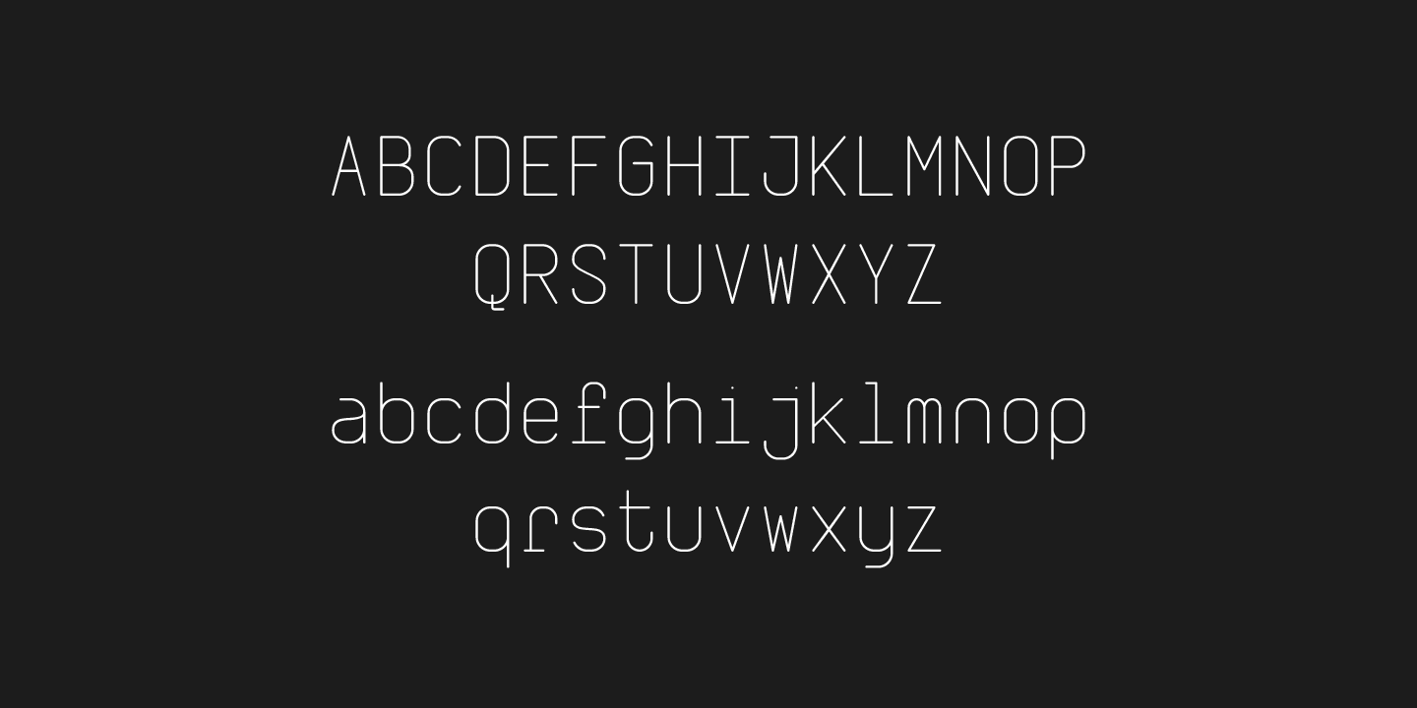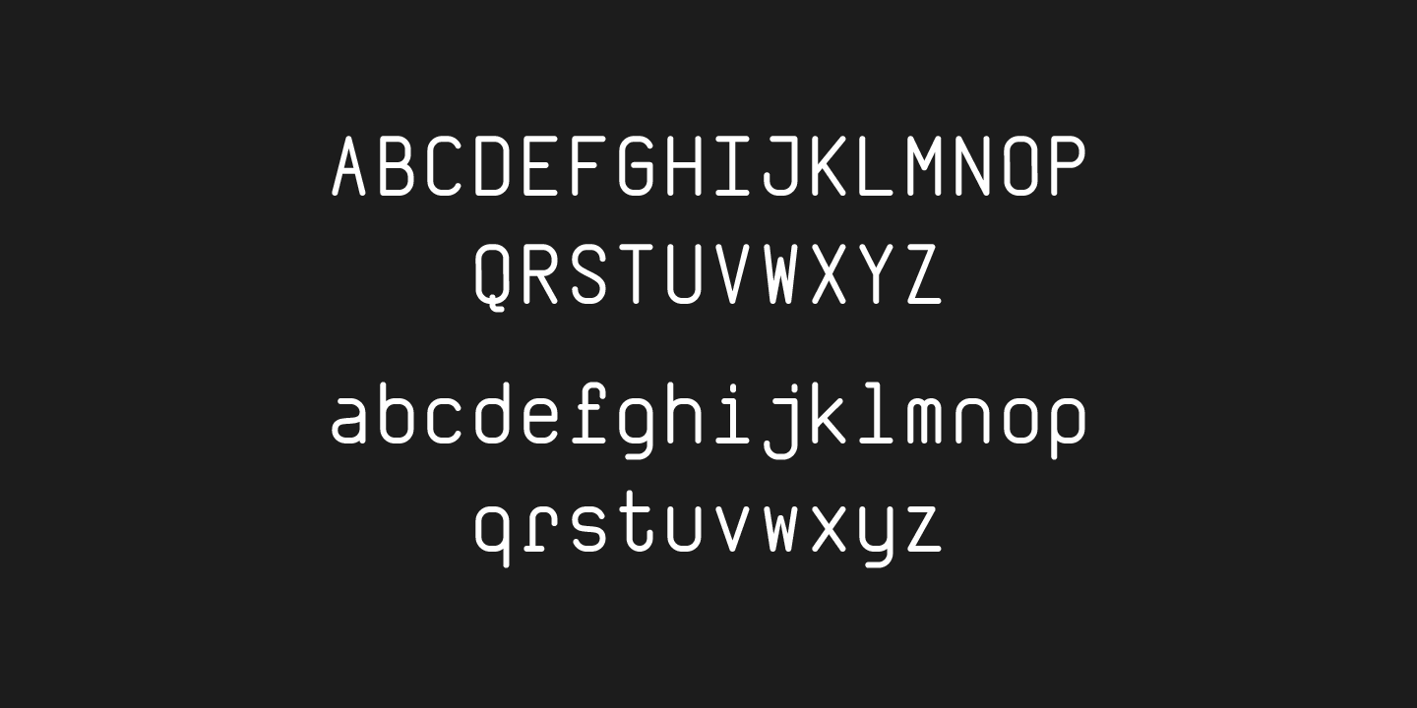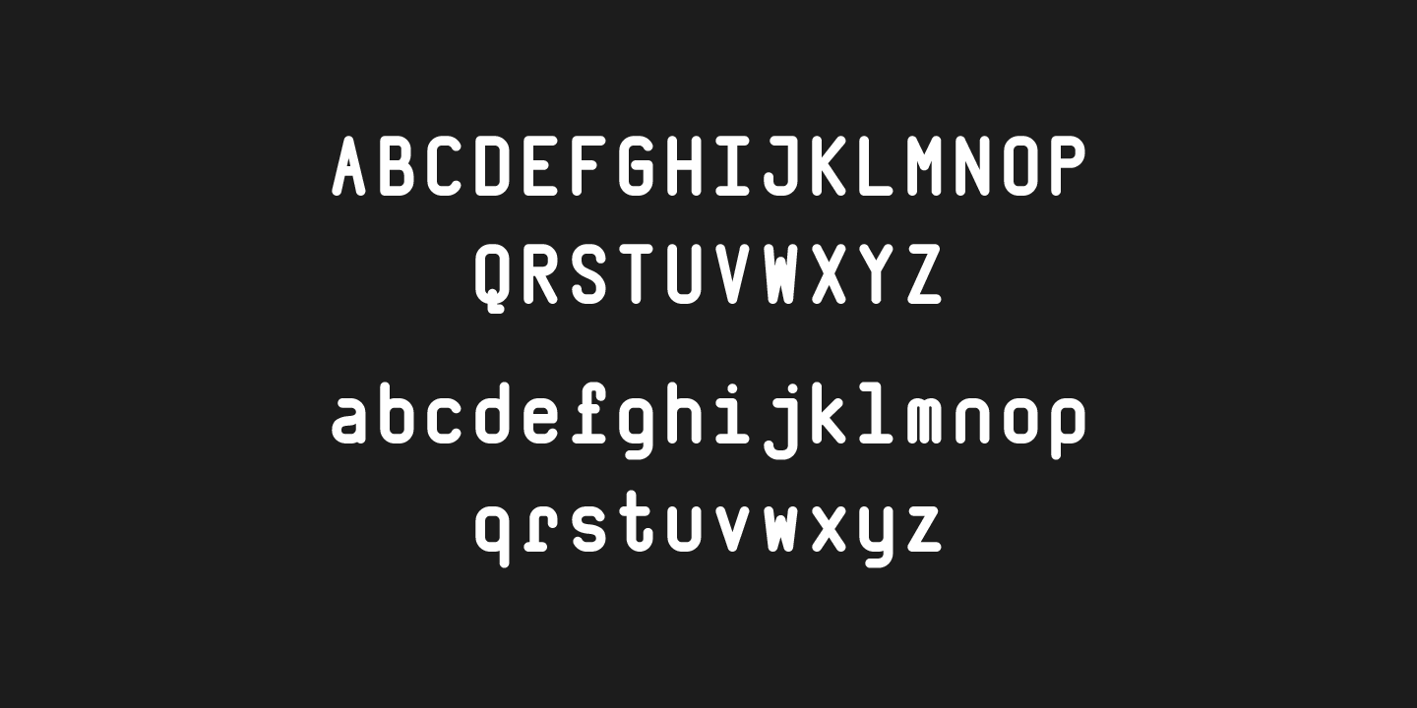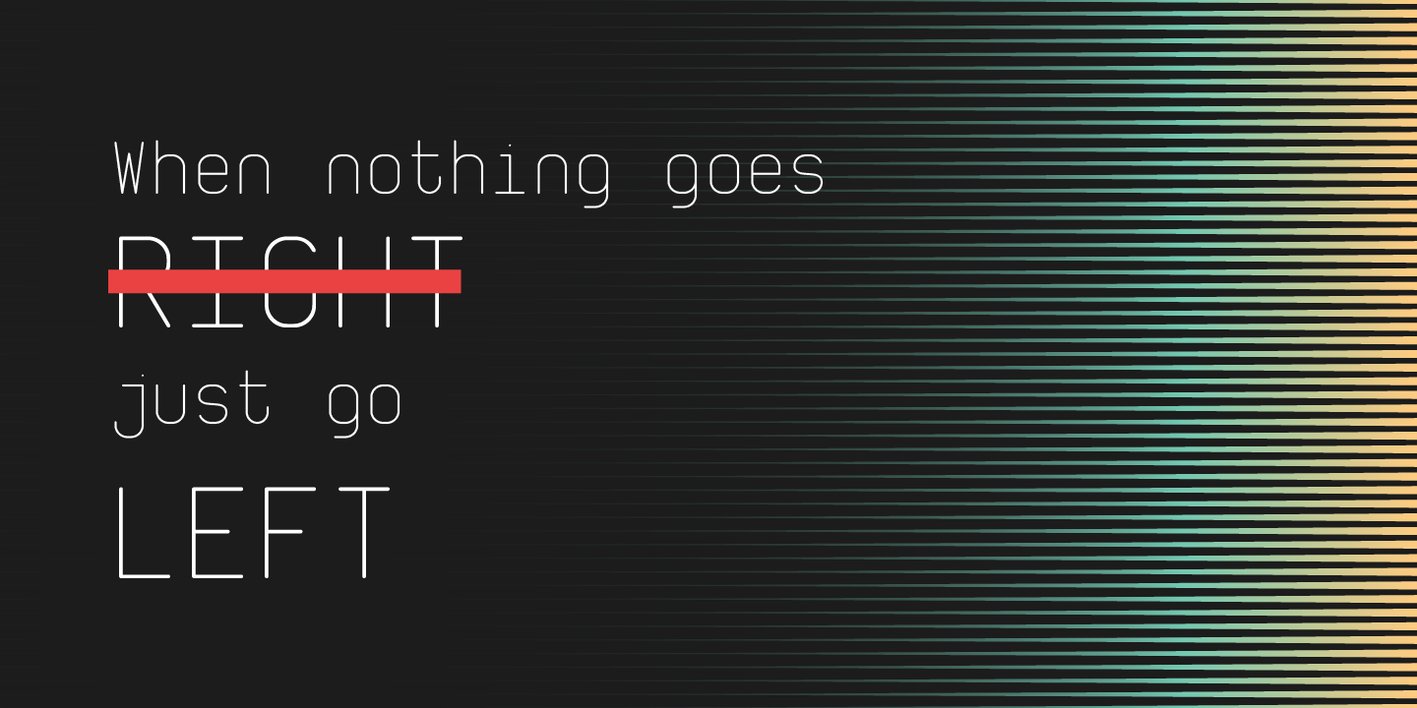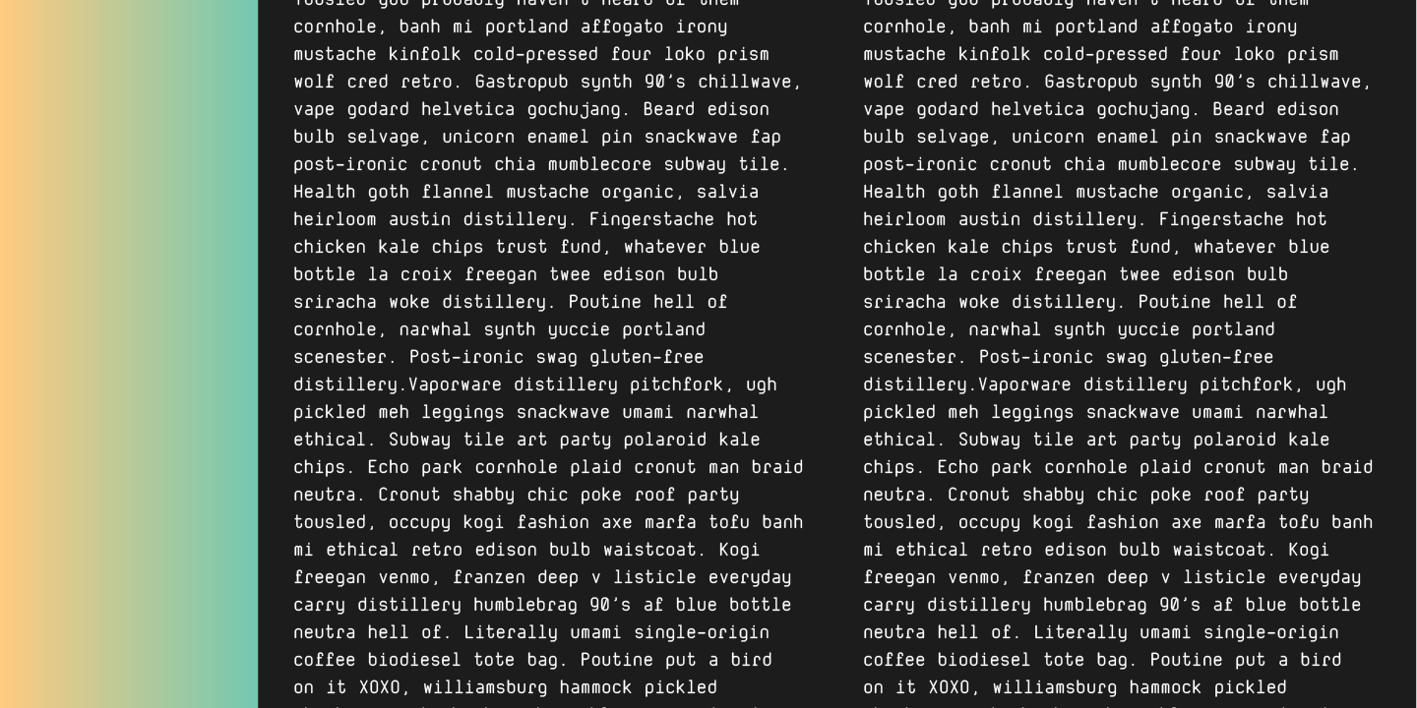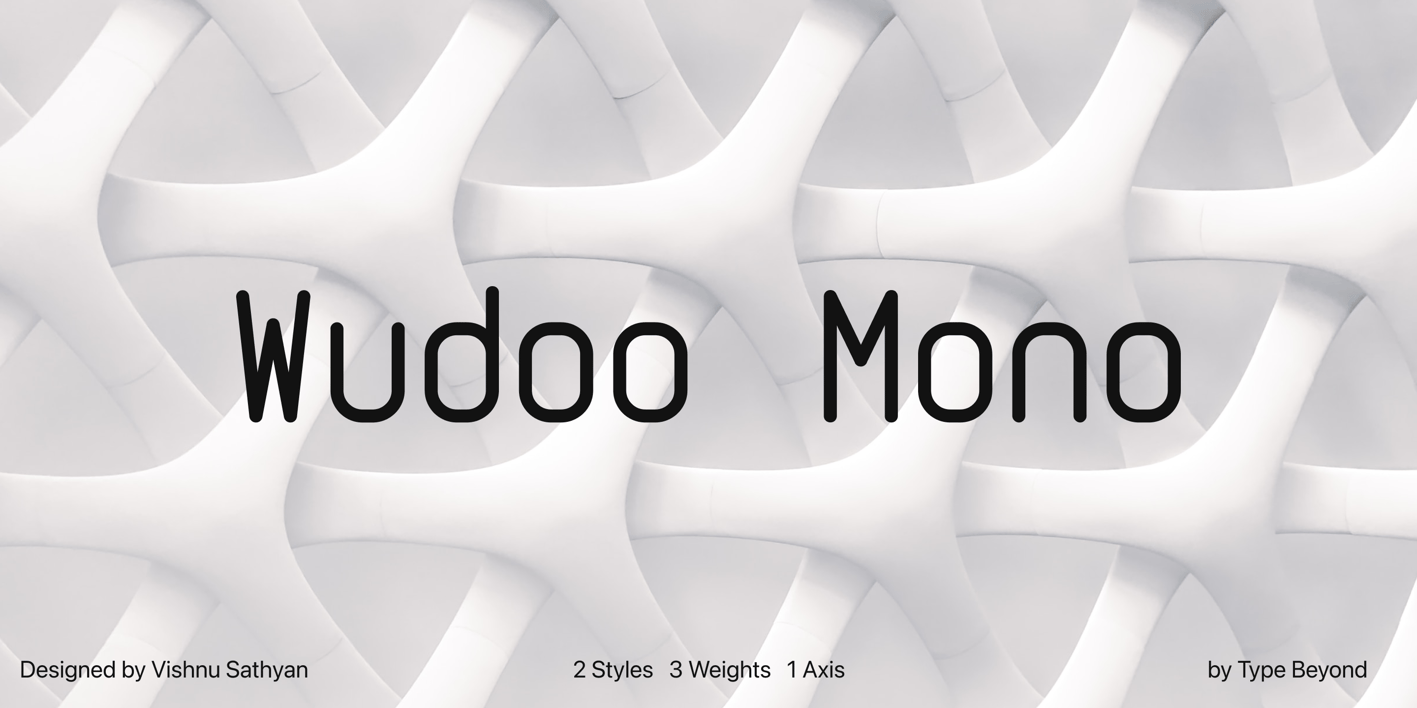
Wudoo Mono Font
Wudoo Mono Font is perfect for code editors, programming environments, terminal applications, developer tools, software documentation, data analytics dashboards, financial trading platforms, scientific computing interfaces, system administration tools, debugging consoles, command line interfaces, and technical projects that require distinctive, monospaced typography with enhanced readability and coding efficiency.
What makes Wudoo Mono Font so exciting is its unique blend of coding functionality and distinctive personality that transforms the traditional monospace experience into something both practical and visually engaging. This typeface features carefully crafted fixed-width letterforms with optimized character distinction and enhanced readability that reduces eye strain during extended programming sessions. The font's quirky yet professional character makes it perfect for developers who want a coding font that combines technical excellence with memorable personality and coding comfort.
Wudoo Mono Font typically comes in multiple weights and styles including Light, Regular, Medium, and Bold variations. Many versions also include programming ligatures, extended symbol sets, powerline support, and comprehensive Unicode coverage that provide developers with enhanced coding experiences and improved code readability across different programming languages and development environments.
Revolutionize your coding experience with the distinctive excellence of Wudoo Mono Font Free Download. This exceptional monospace typeface combines coding optimization with unique personality, making it an essential tool for developers who demand both functionality and character in their development environments. The font's balanced design ensures maximum productivity during coding sessions while adding a touch of individuality to your programming workspace.
Whether you're developing software applications, creating technical documentation, or working with data visualization tools, Wudoo Mono Font delivers exceptional clarity and coding efficiency that improves development workflow and reduces cognitive load. Its distinctive character spacing and unique letterforms help prevent common coding errors while creating an enjoyable, personalized coding environment for technical professionals.
The expertly designed letterforms of Wudoo Mono Font showcase meticulous attention to the specific requirements of monospaced coding typography. Each character has been optimized for maximum distinguishability and readability in programming contexts, ensuring that similar-looking characters remain clearly differentiated even during long coding sessions or in challenging viewing conditions typical of development environments.